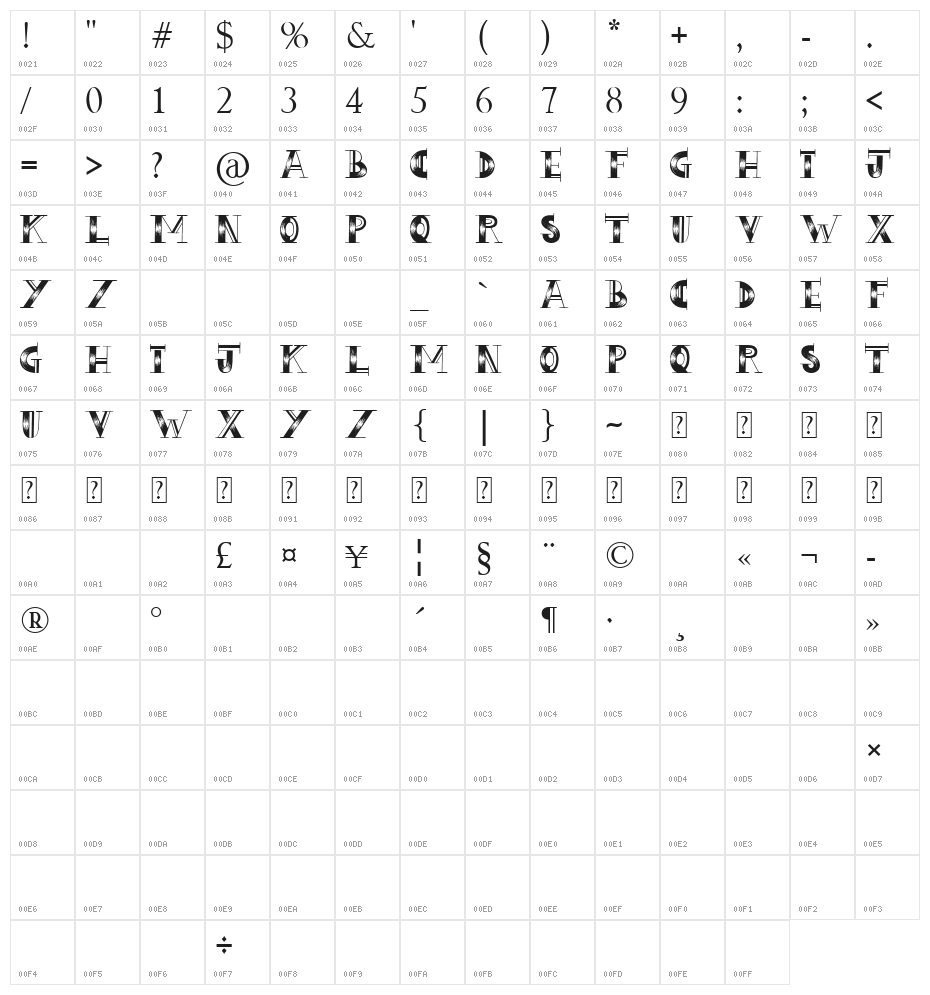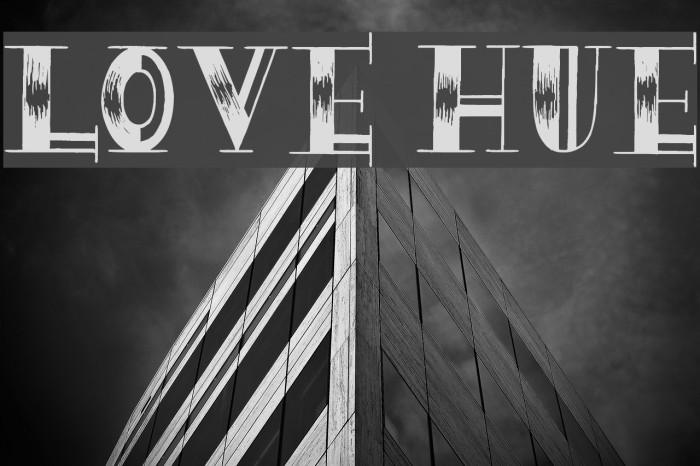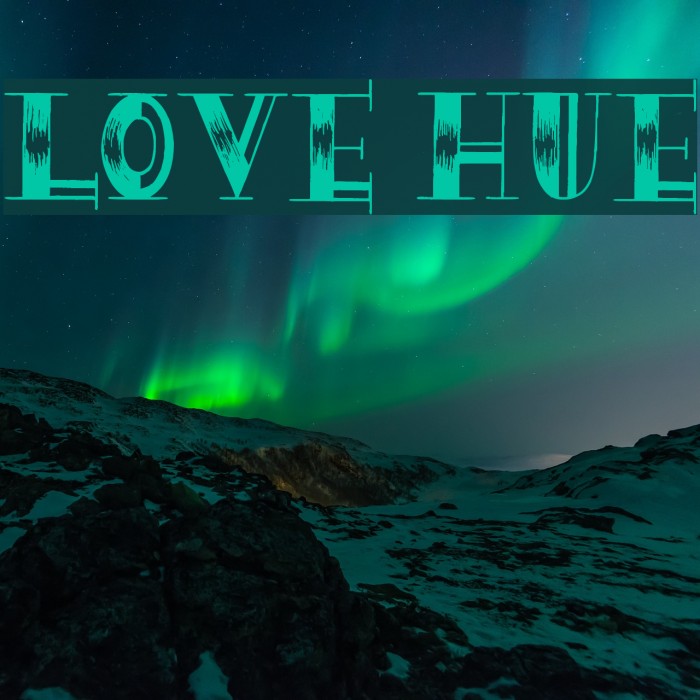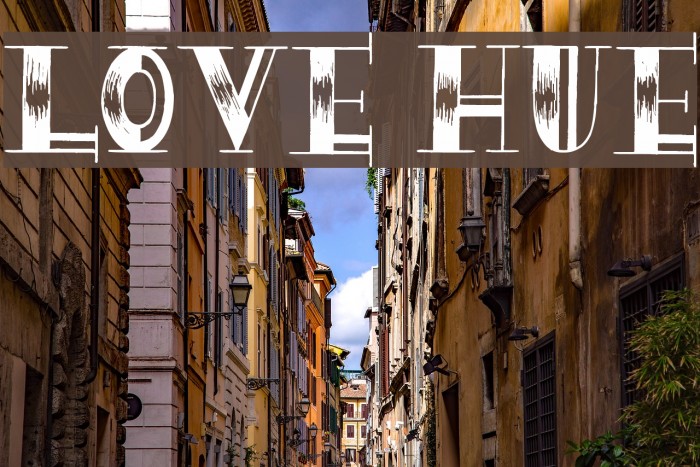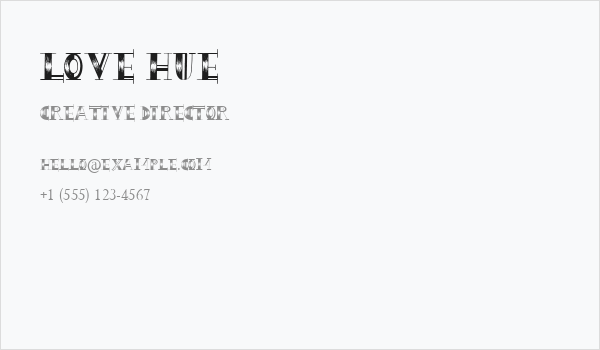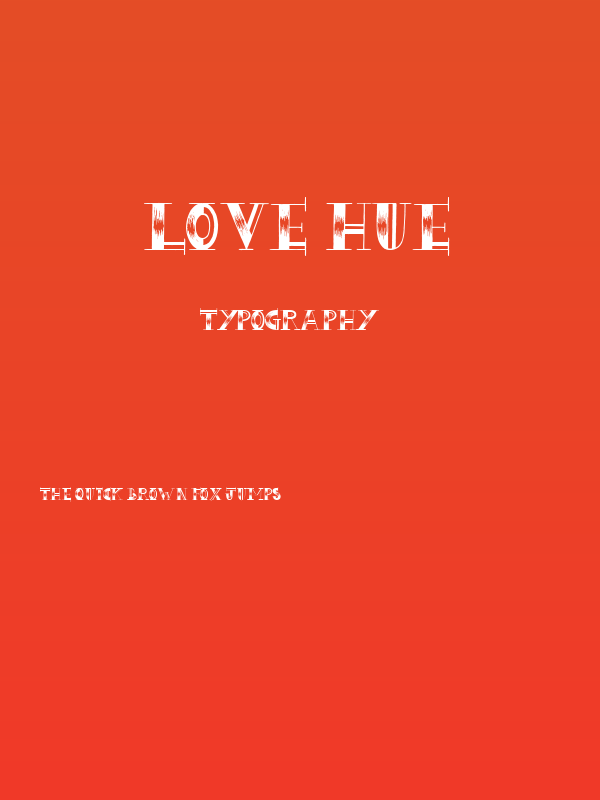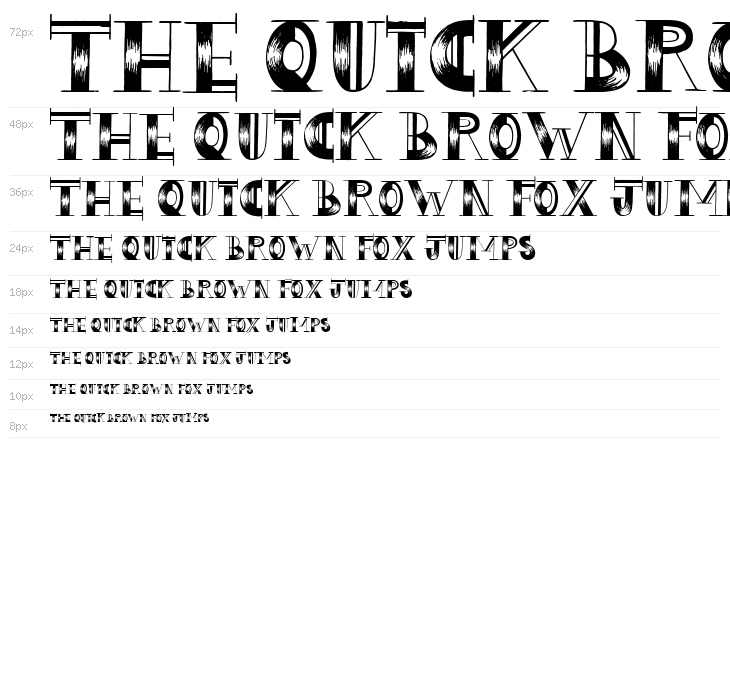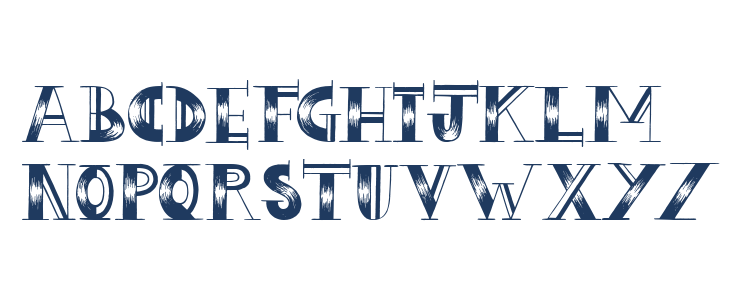
Love Hue Font
Love Hue Description
This font features a unique and artistic design with a distressed, brush-stroke effect that adds a dynamic and textured appearance to each character. The uppercase letters are bold and striking, with a distinct pattern that creates a sense of movement and energy. The lowercase letters maintain this style, offering a cohesive look throughout. Numbers and special characters are also designed with the same artistic flair, making the font versatile for creative projects. The overall style is decorative, making it suitable for eye-catching headlines and artistic designs.
| Use Case | Headlines, Logos, Artistic designs |
| Proposed Projects | Ideal for posters, album covers, artistic branding, and creative headlines. |